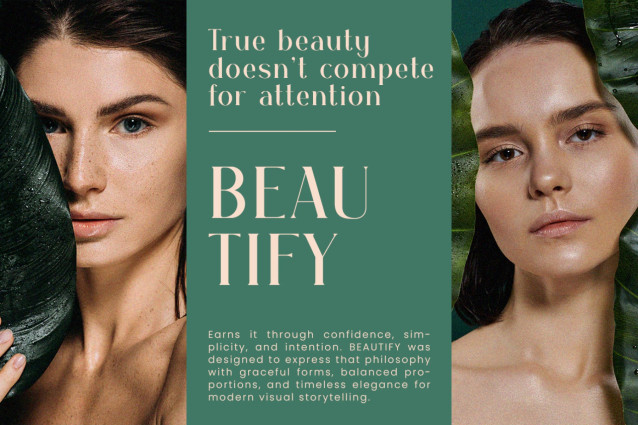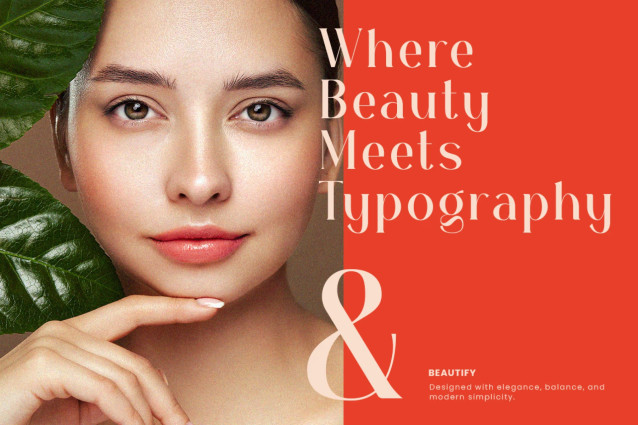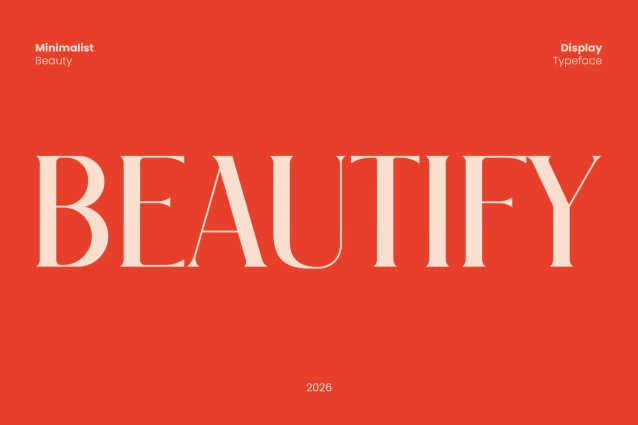
Beautify Font
Instagram Font Beautify celebrates the beauty of simplicity through graceful typography that feels calm, refined, and effortlessly modern. Rather than relying on excessive decoration, this elegant serif creates impact with delicate curves, balanced proportions, and sophisticated contrast. Moreover, every letter is carefully crafted to evoke a sense of luxury and harmony.
As a result, your headlines appear polished, graceful, and naturally captivating. At the same time, its clean structure ensures outstanding readability across both digital and printed media. Furthermore, Beautify transforms ordinary layouts into premium visual experiences where every word becomes part of the design itself.